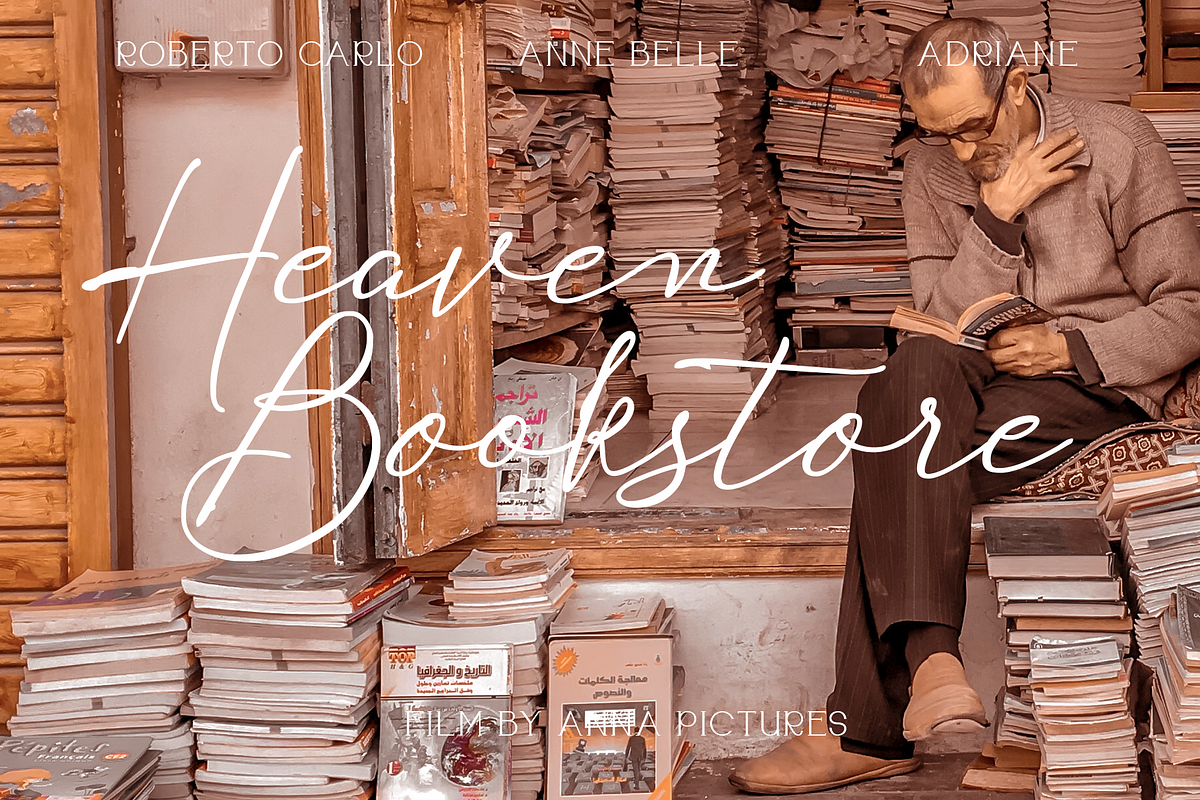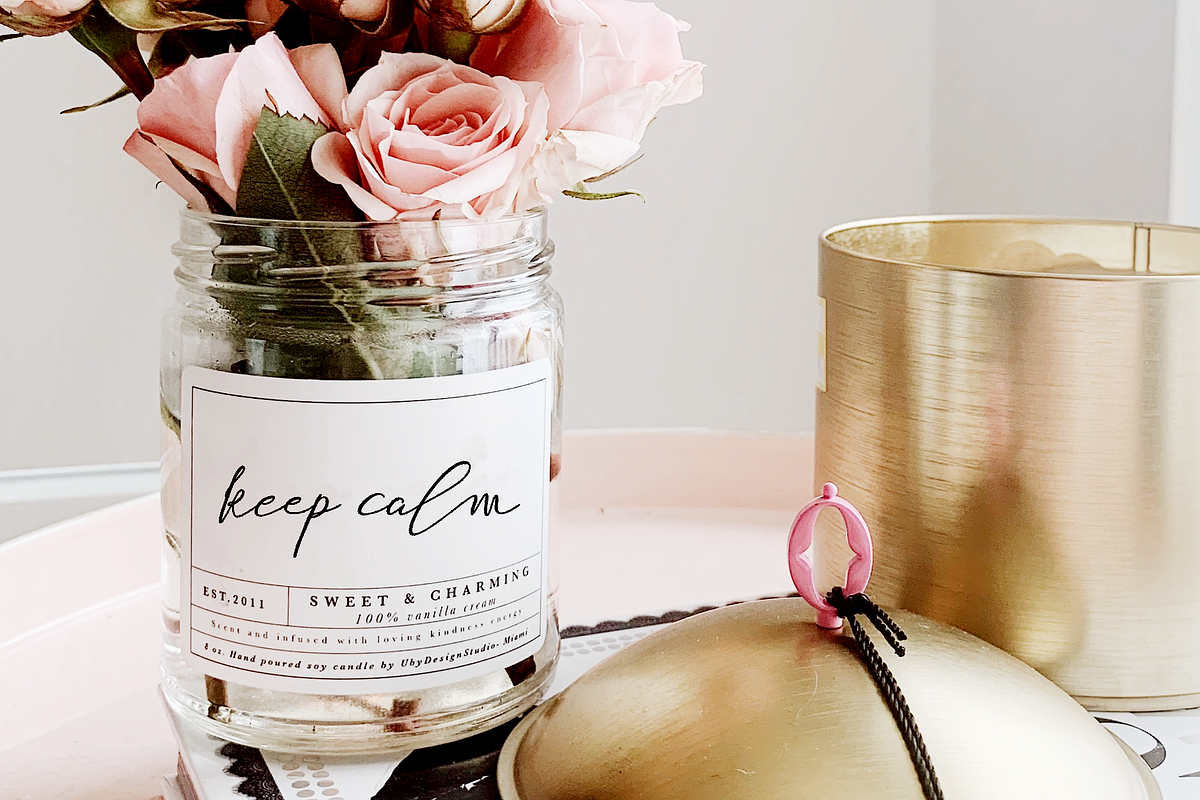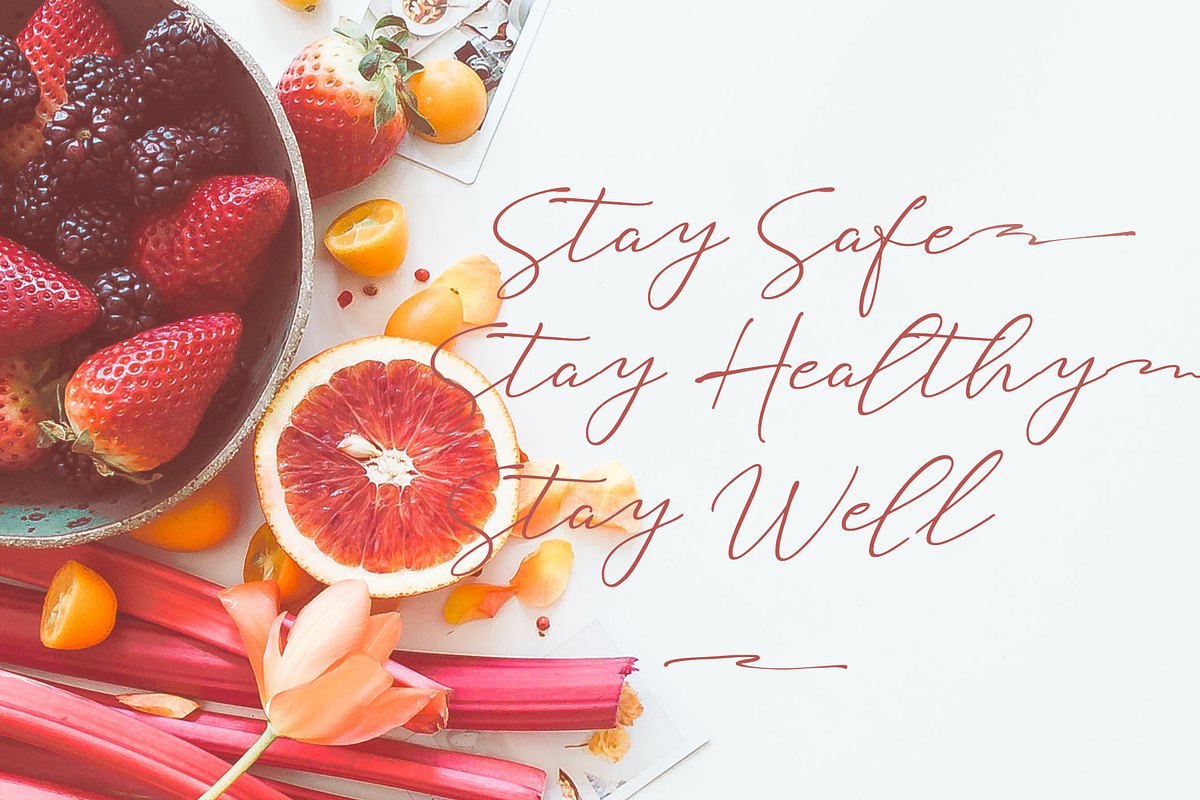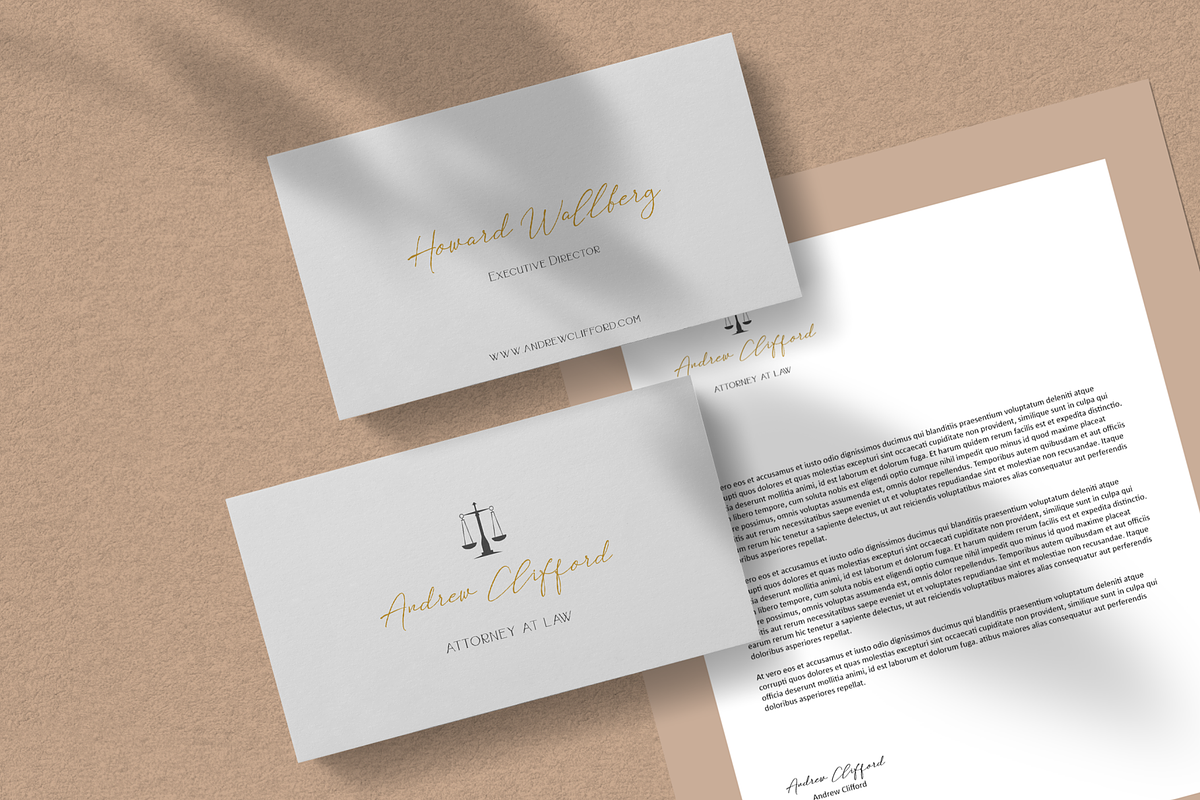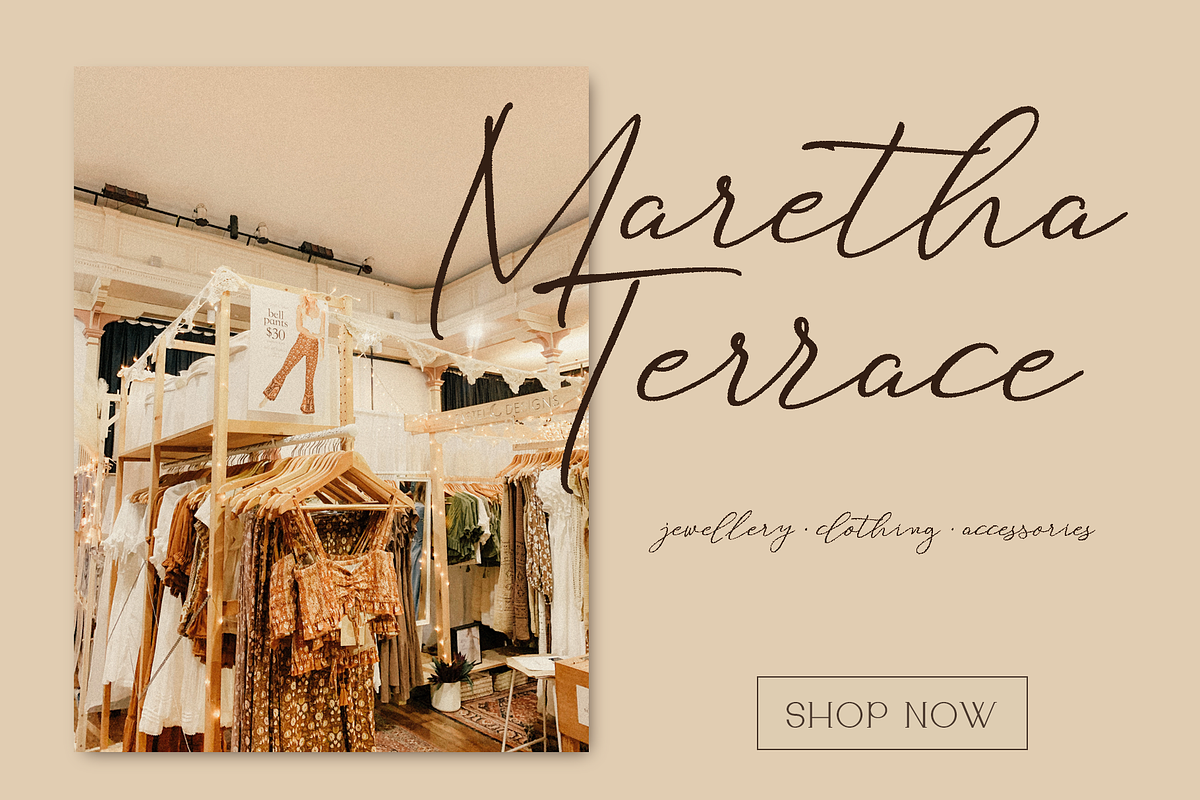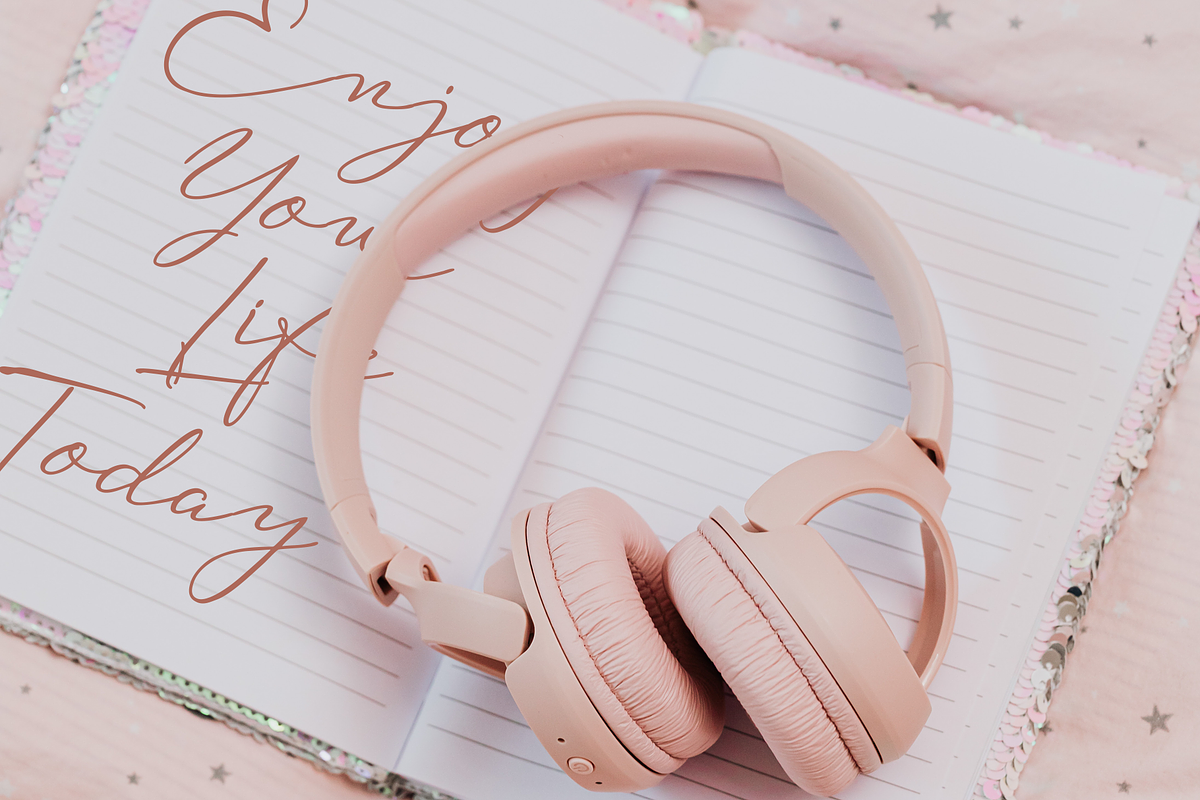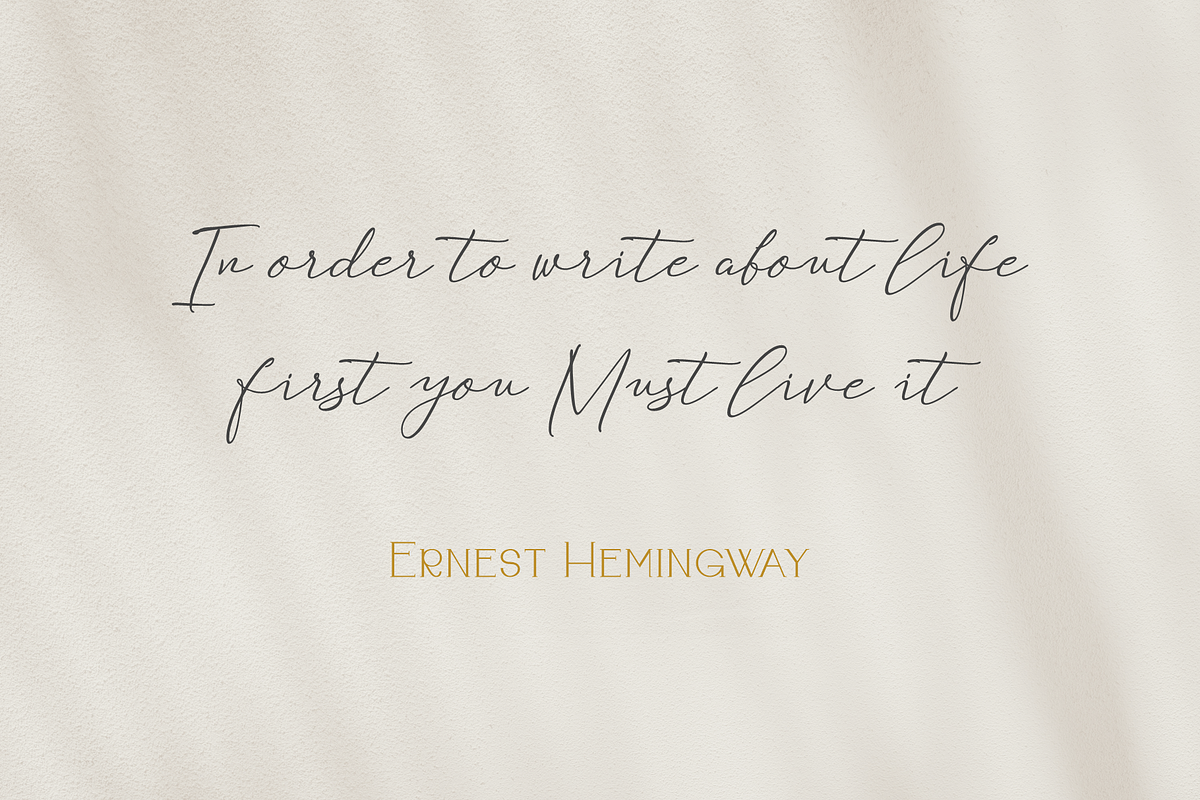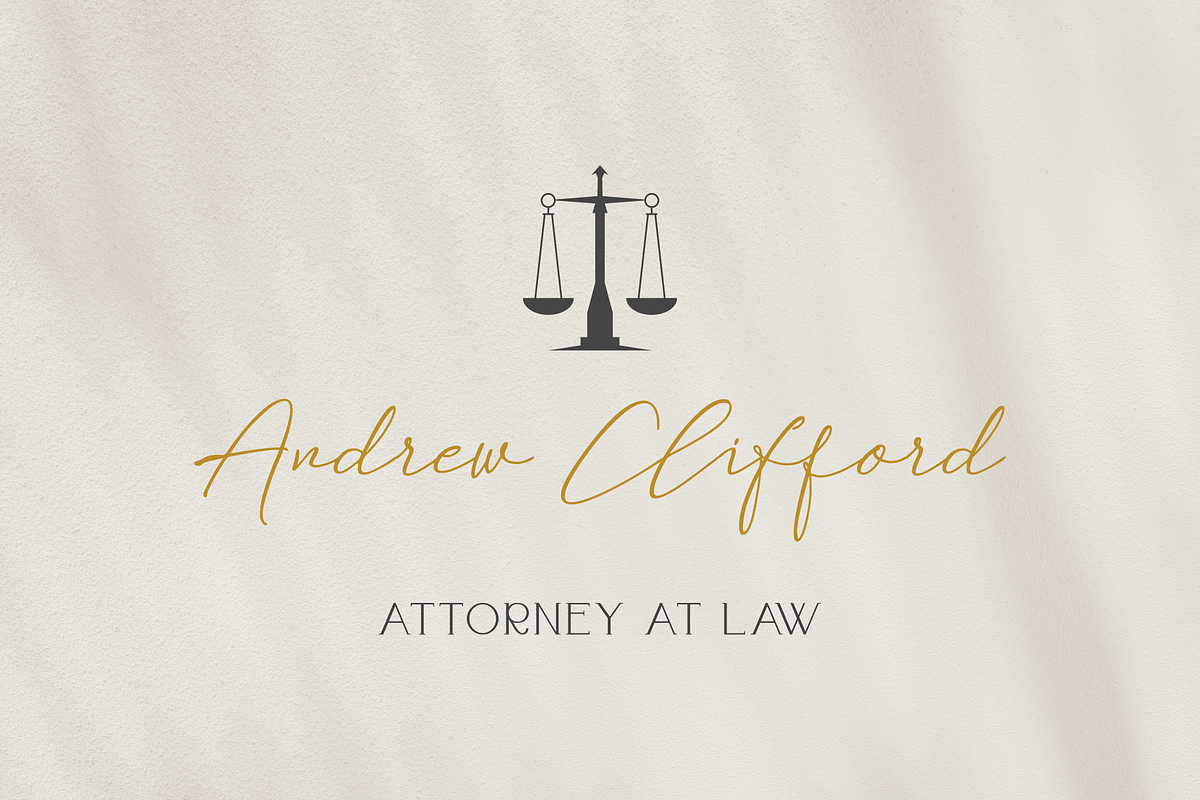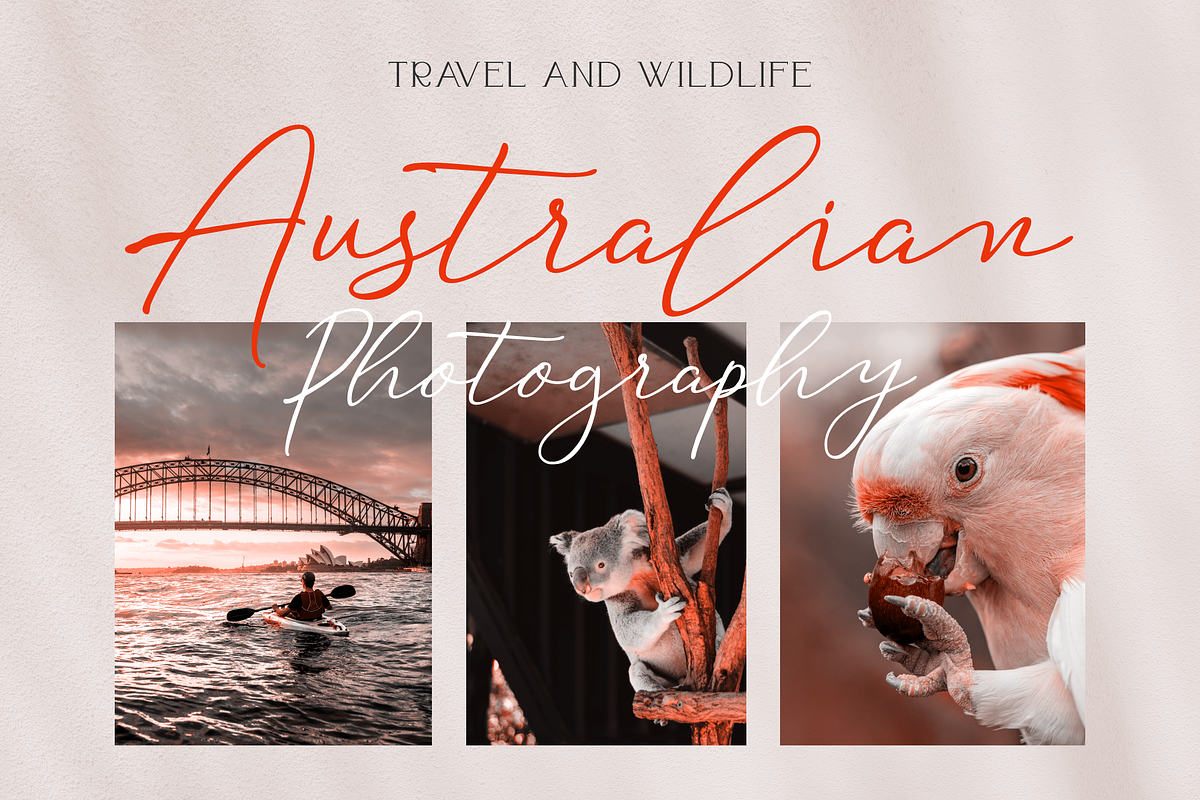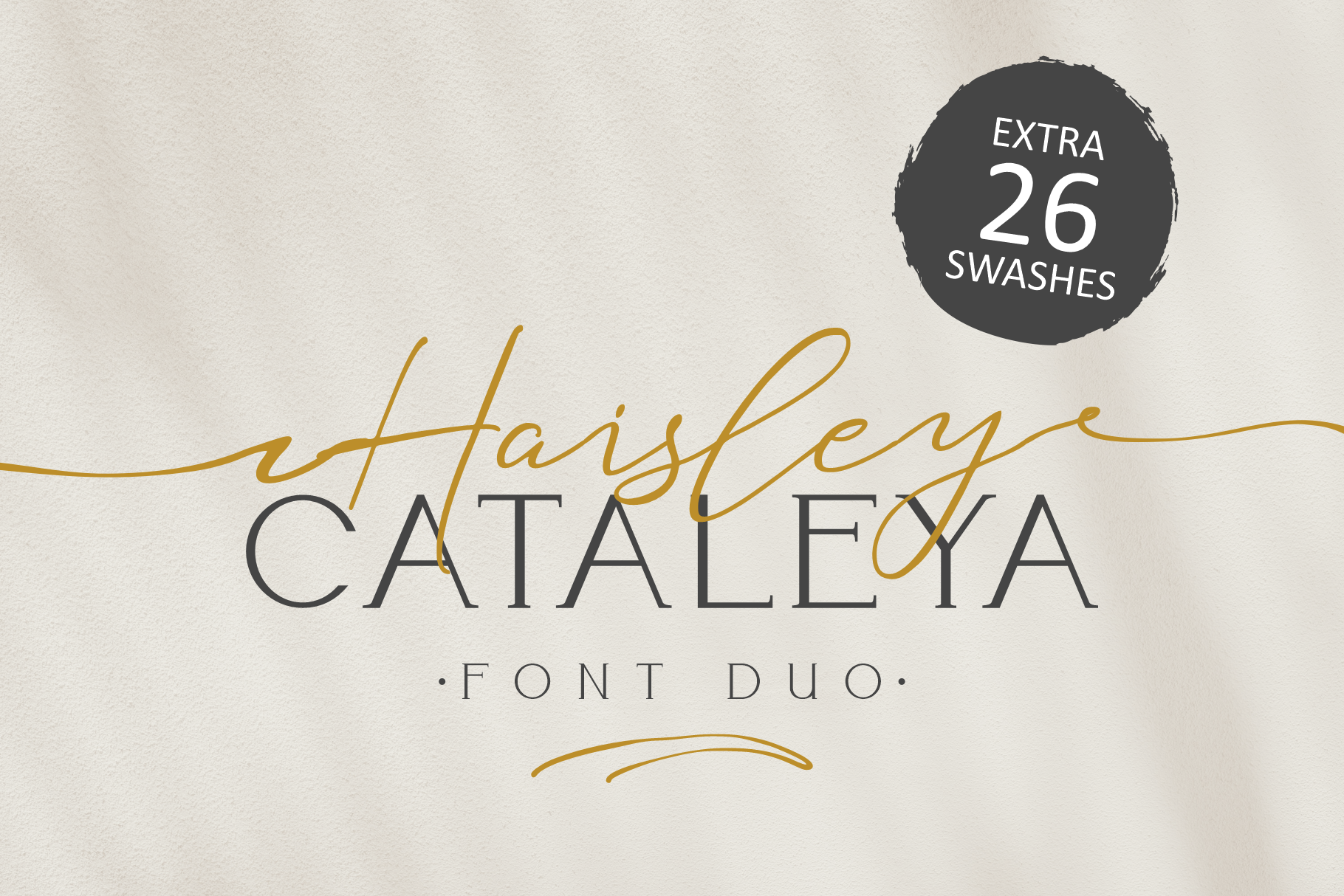
Haisley Cataleya | Exotic Font Duo
A beautiful combination of two fonts. This script includes many automatic ligature options, it makes your type more like natural handwriting rather than fonts. The script has uppercase, lowercase letters, all punctuation and numbers. Extra swash with many options, making your design look more natural, like real handwriting